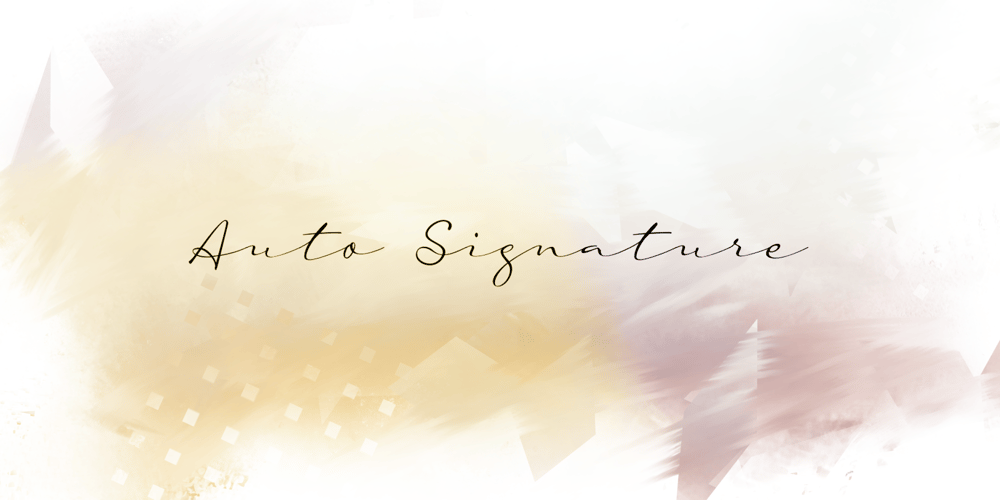
Auto Signature Script
Auto Signature Script font
Auto Signature Script Font Family was designed by Wahyu Eka Prasetya and published by WEP. Auto Signature Script contains 1 styles and family package options. Introducing the Auto Signature Script Typeface. Your Personal Feel of Luxury. This methodically crafted typeface easily merges the timeless elegance of hand- lettered scripts with the modern flexibility of a digital font. Its elegant curves and moving strokes capture the essence of fluid script, bringing a personal feel to every design. Whether you’re crafting wedding invitations, logos, packaging, or social media graphics, this font will add a feel of class that speaks with your audience.